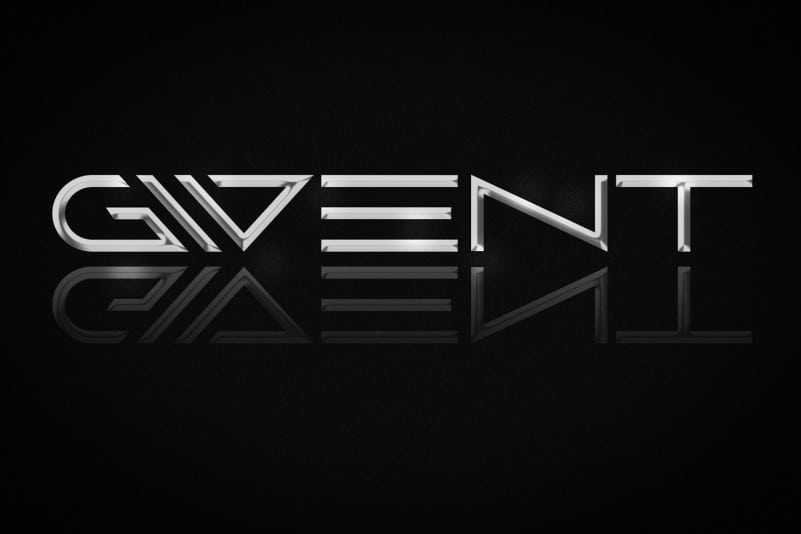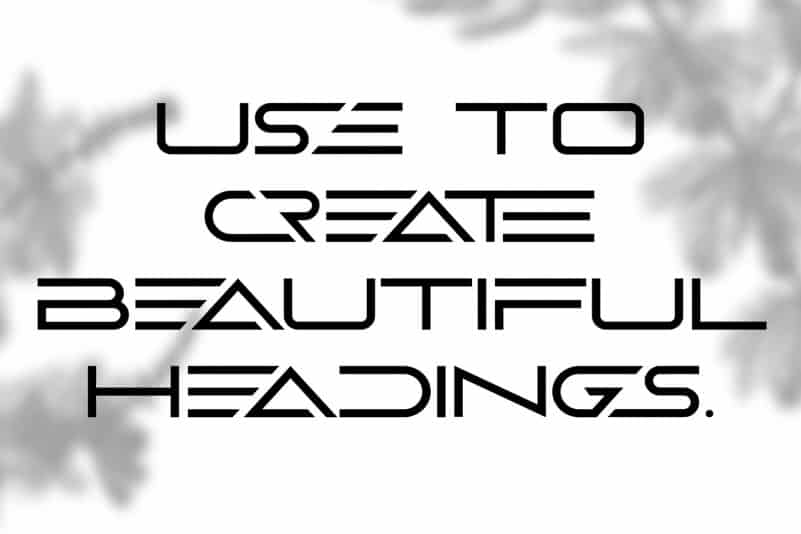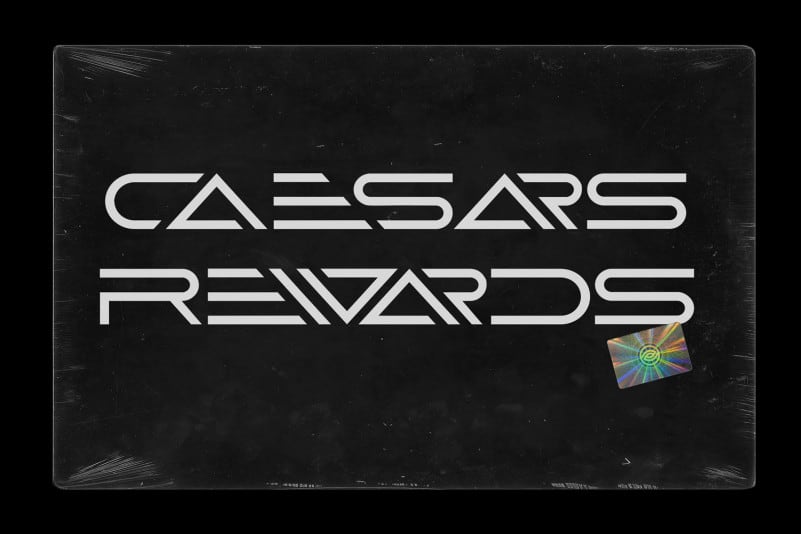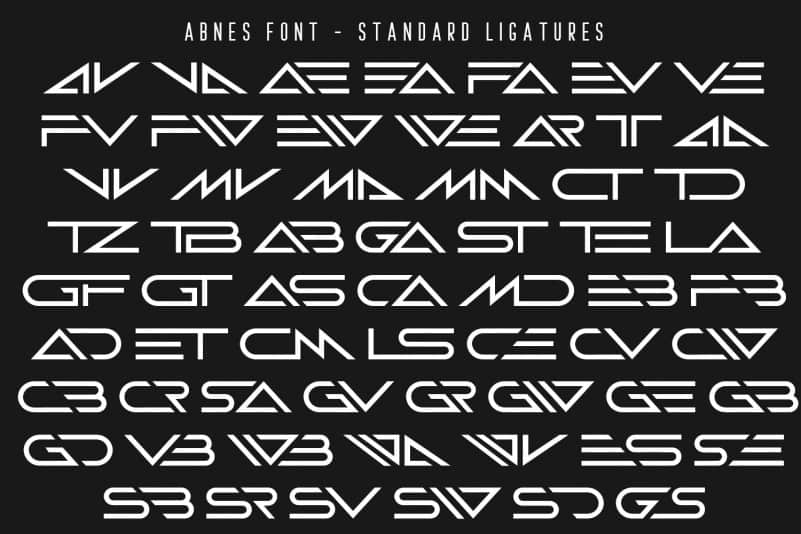
Abnes – Elegant Sans Serif Font
ABNES is a stunning classy modern bold all-caps sans serif. It’s an Elegant Sans serif typeface, Fashionable, Classy but still Modern. Designed with powerful opentype features in mind, and some nuances aid in legibility and give it a harmonious appearance for both texts and headlines.
Use to create beautiful headings, gorgeous invitations, stunning logos, and so much more!! Perfect for displays, headers, invitations, save the dates, weddings, and so much more, it’s will become a playful staple in your font library!
To make it look more unique, here we prepared some ligatures:
AV VA AE EA FA EV VE FV FW EW WE AR TT AA VV MV MA MM CT TD TZ TB AB GA ST TE LA GF GT AS CA MD EB FB AD ET CM LS CE CV CW CB CR SA GV GR GW GE GB GD VB WB WA WV ES SE SB SR SV SW SD GS